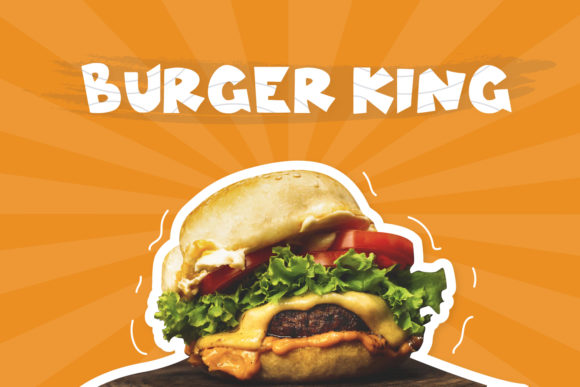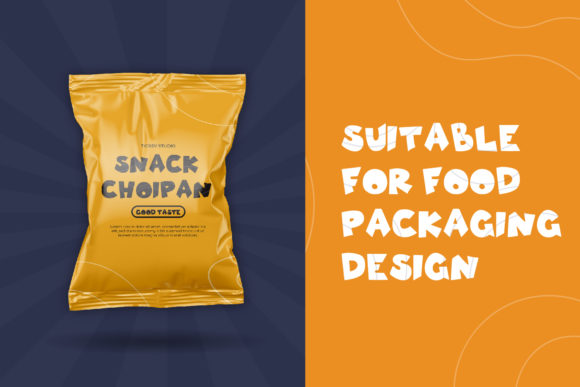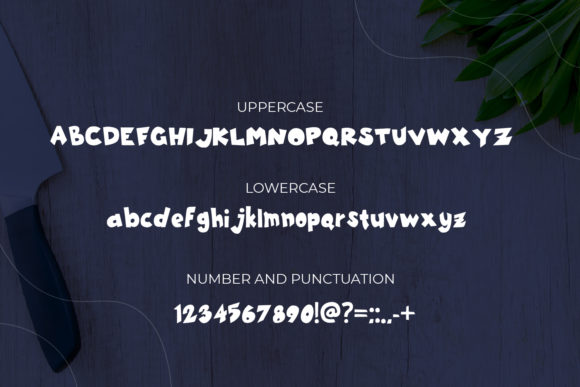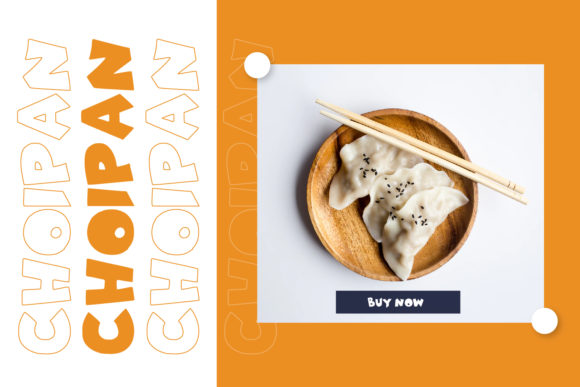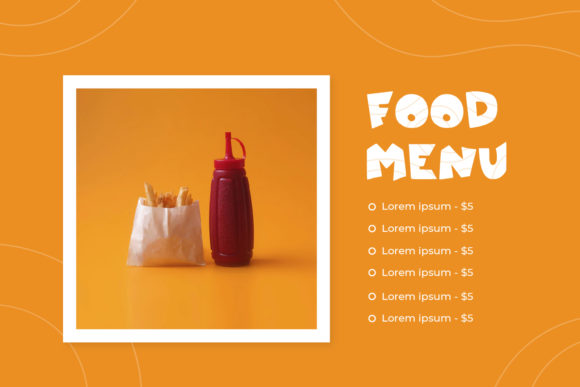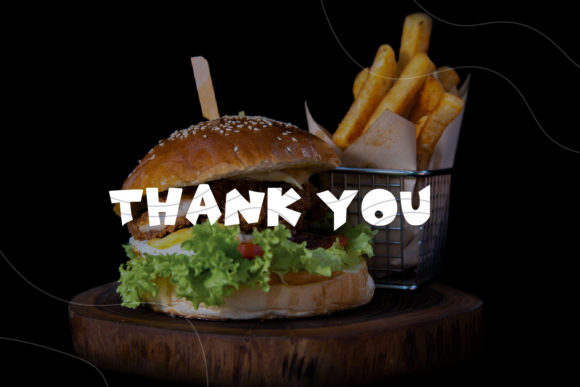
Introducing Choipan Font: The Perfect Choice for Food-Themed Designs
Are you a designer or crafter looking for a unique and eye-catching font to elevate your food-themed designs? Look no further than Choipan Font! This adorable display font is specifically designed to add a touch of casual charm to your projects, making it the perfect choice for anyone who wants to create visually appealing and engaging designs.
The Characteristics of Choipan Font
Choipan Font is a one-of-a-kind display font that boasts a cute and unique style that’s sure to capture the attention of your audience. Its casual charm makes it look down-to-earth, easy to read, and incredibly versatile. Whether you’re designing a menu, a food blog, or a social media post, Choipan Font is the perfect choice to add a personal touch to your project.
Why Choose Choipan Font?
So, what makes Choipan Font stand out from the rest? Here are just a few reasons why designers and crafters love this font:
- Unique and eye-catching: Choipan Font has a distinctive style that’s sure to set your designs apart from the crowd.
- Casual charm: This font has a friendly, approachable feel that’s perfect for food-themed designs.
- Easy to read: Despite its unique style, Choipan Font is incredibly easy to read, even in smaller sizes.
- Versatile: Whether you’re designing a menu, a brochure, or a social media post, Choipan Font is the perfect choice.
How to Use Choipan Font
One of the best things about Choipan Font is its versatility. Here are a few ways you can use this amazing font in your designs:
- Menu design: Use Choipan Font to create eye-catching menus for restaurants, cafes, or food trucks.
- Food blog design: Add a personal touch to your food blog with Choipan Font, perfect for headings, titles, and more.
- Social media posts: Use Choipan Font to create engaging social media posts that will grab the attention of your followers.
- Brochures and flyers: Add a touch of whimsy to your brochures and flyers with Choipan Font, perfect for highlighting special offers or promotions.
Tips for Pairing Choipan Font with Other Fonts
When it comes to pairing Choipan Font with other fonts, the possibilities are endless! Here are a few tips to keep in mind:
- Pair with a serif font: Pair Choipan Font with a serif font, such as Times New Roman or Garamond, for a classic and elegant look.
- Pair with a script font: Pair Choipan Font with a script font, such as Pacifico or Great Vibes, for a more whimsical and playful look.
- Use as a standalone font: Don’t be afraid to use Choipan Font as a standalone font – its unique style makes it perfect for use on its own.
In conclusion, Choipan Font is a unique and versatile display font that’s perfect for food-themed designs. Its casual charm, ease of readability, and versatility make it a must-have for designers and crafters. Whether you’re designing a menu, a food blog, or a social media post, Choipan Font is the perfect choice to add a personal touch to your project. So why wait? Download Choipan Font today and start creating amazing designs that will capture the attention of your audience!